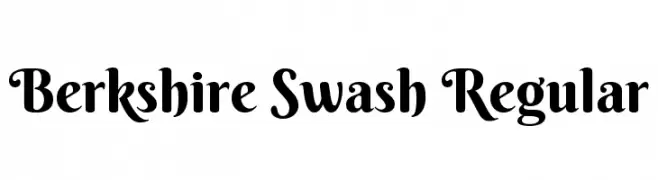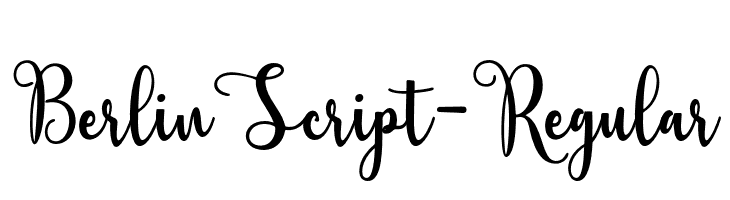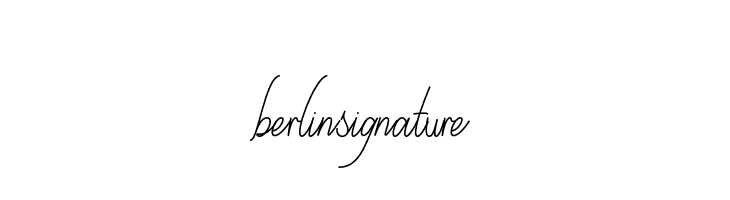
A bold serif typeface with high contrast and classic elegance.
A bold, italic serif font with a classic and elegant style.
A classic serif typeface with an elegant italic style and refined serifs.
A classic serif font with medium contrast and elegant proportions.
A bold, classic serif font with strong, elegant strokes.
A bold, italic serif font with a classic and elegant style.
An elegant serif italic font with smooth, flowing curves and a classic appearance.
A classic serif font with elegant, balanced letterforms and medium contrast.
A whimsical and artistic font with flowing, cursive-like strokes.